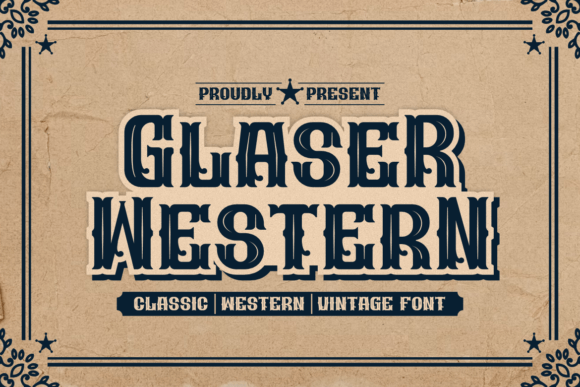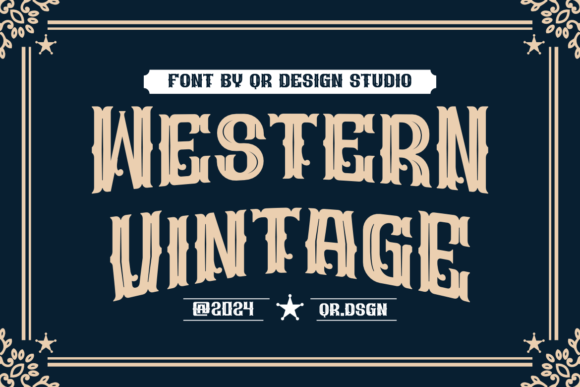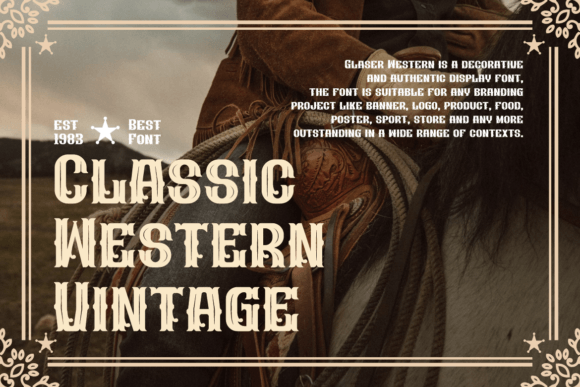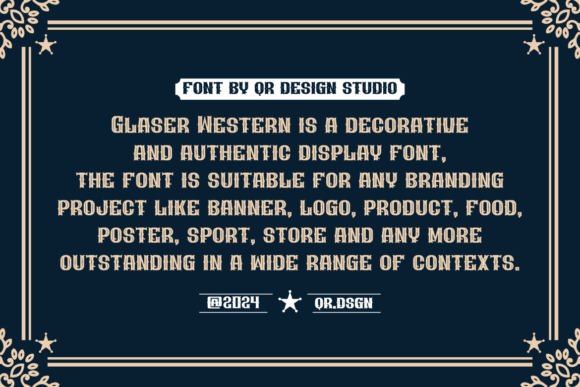
Glaser Western Font: A Bold Vintage Typography for Logo Design
About the Glaser Western Font
The Glaser Western Font offers a perfect balance of form and function for your design needs. Glaser Western is a bold and assertive slab serif font. No matter the topic, this font will be an incredible asset to your fonts’ library, as it has the potential to elevate any creation.
Its strong, blocky serifs make Glaser Western ideal for headlines, posters, and branding applications requiring a bold and confident statement. It excels in short, impactful text settings where readability at larger sizes isn’t a concern. However, avoid using it for body copy or lengthy paragraphs; its weight and x-height make it less suitable for extended reading.
The font’s assertive personality pairs well with clean sans-serif fonts like Futura or Helvetica Neue for a balanced contrast. For a more playful feel, consider pairing it with a rounded sans-serif such as Gill Sans. Alternatively, a delicate script font could add a touch of elegance, softening its bold character.
Glaser Western projects a powerful, classic, and slightly rebellious mood. It’s a strong choice for brands aiming for a vintage-inspired aesthetic, or those communicating strength, heritage, and a touch of rugged individualism.